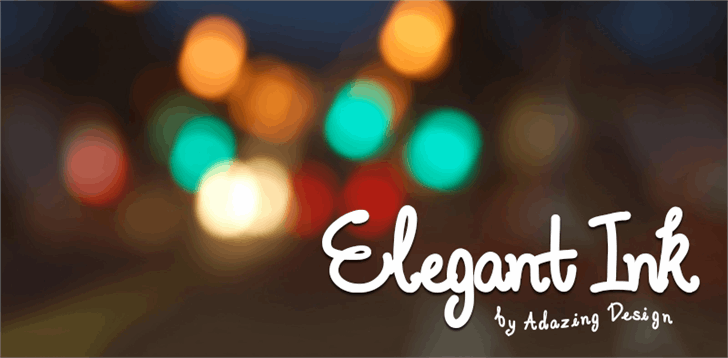
Free Elegant Ink Font
Introducing you to the absolutely beautiful free elegant ink font. This is a downloadable typeface file brought to you by Font Space. This is absolutely cool font so you can easily make world-class designs.